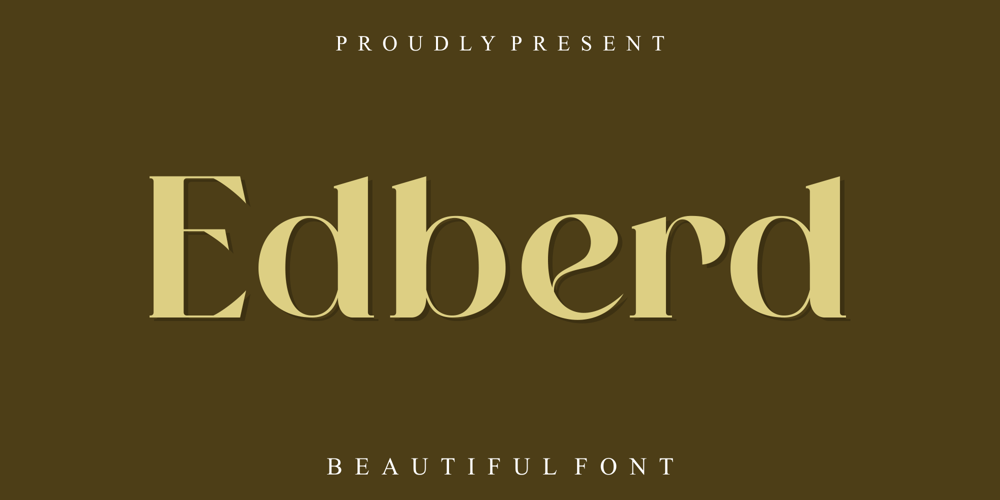
Edberd Font Family was designed by Juliawan . and published by Juliawan90. Edberd contains 1 styles and family package options. Edberd is a beautiful font. This font perfectly made to be applied especially in logo, and the other various formal forms such as invitations, labels, logos, magazines, books, greeting / wedding cards, packaging, fashion, make up, stationery, novels, labels or any type of advertising purpose.We highly recommend using a program that supports OpenType features and Glyphs panels like many of Adobe apps and Corel Draw, so you can see and access all Glyph variations.Happy Designing!